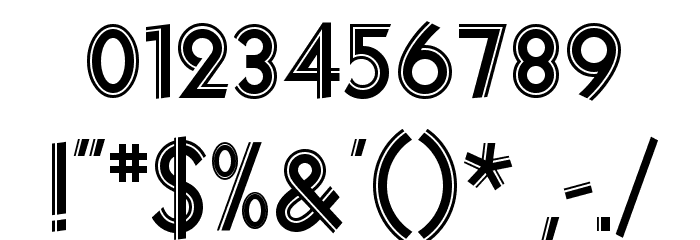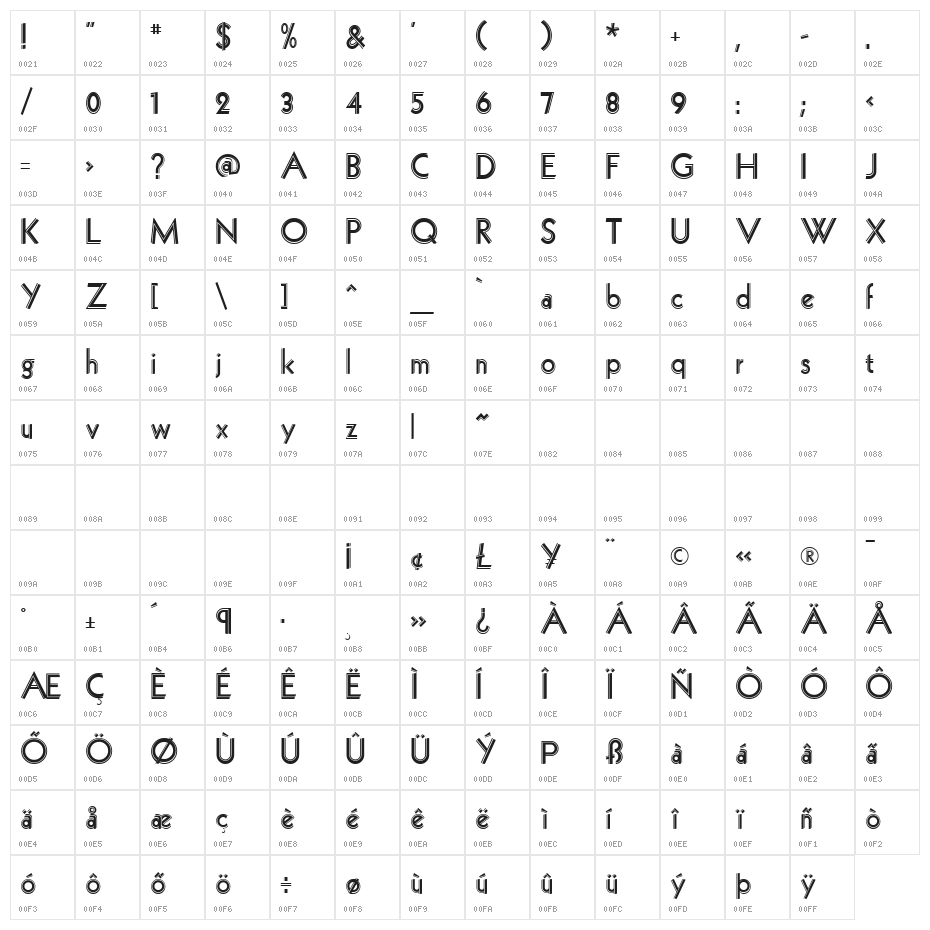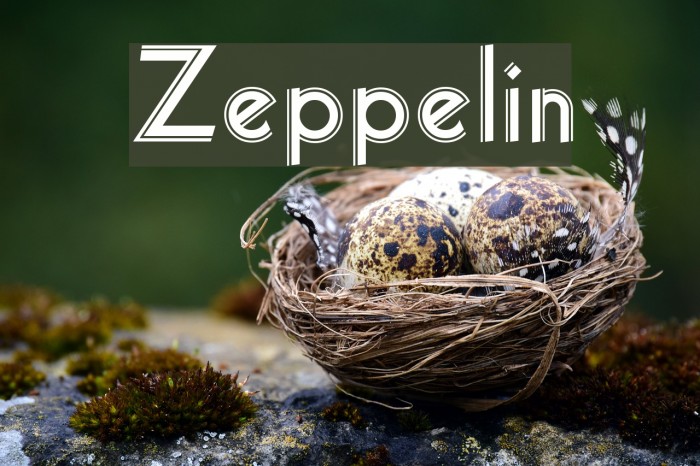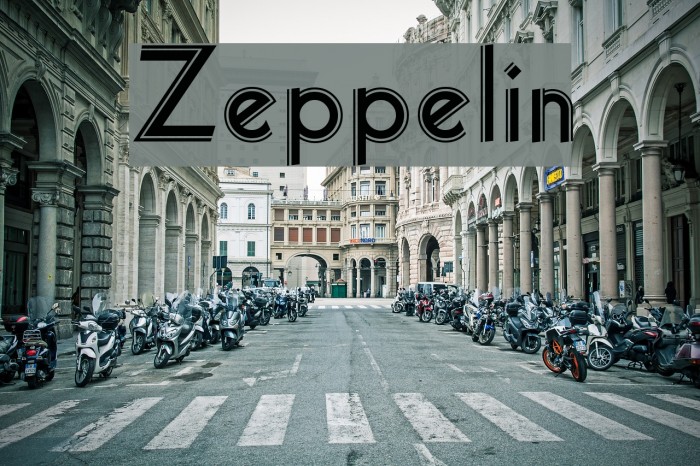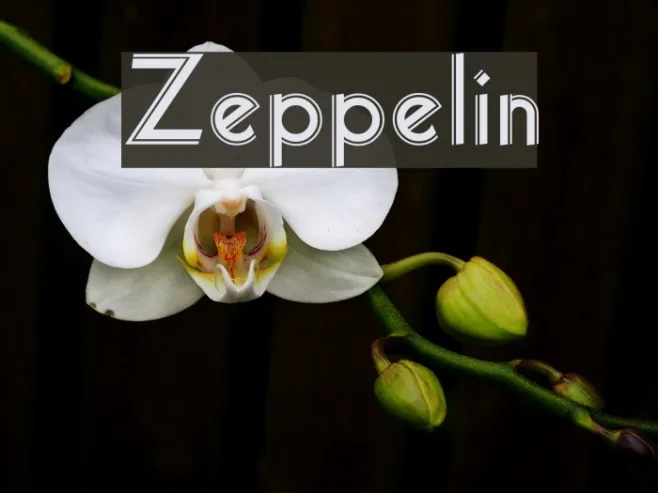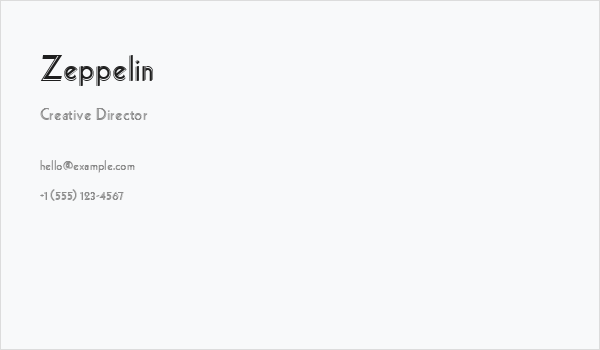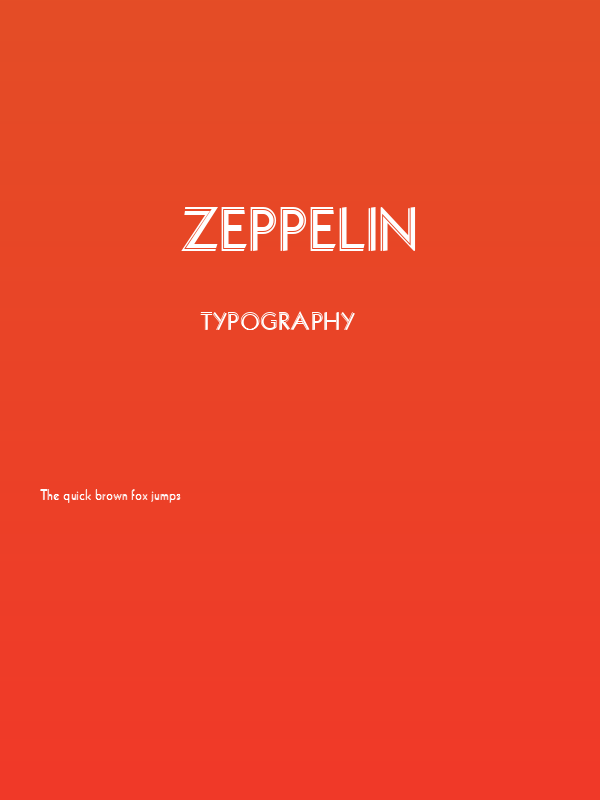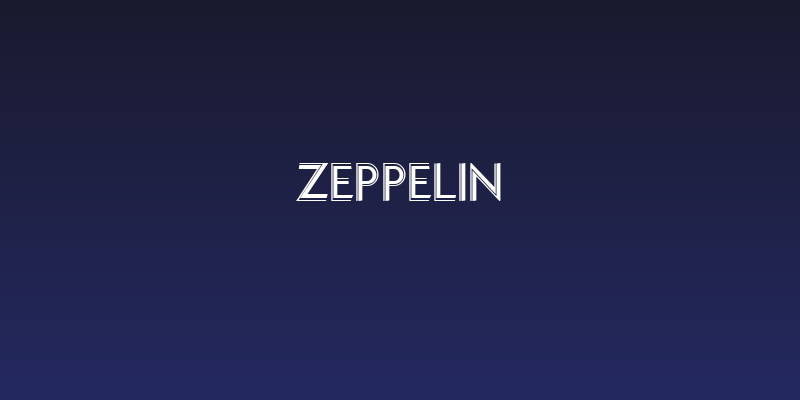
Zeppelin Font
Zeppelin Description
This font features a bold, geometric design with a strong Art Deco influence. The uppercase letters are characterized by sharp angles and clean lines, creating a sense of elegance and sophistication. The lowercase letters maintain a similar style, with consistent stroke widths and a modern flair. The numerals are distinct and easy to read, complementing the overall aesthetic. Special characters are designed with the same attention to detail, ensuring a cohesive look across all glyphs. This font is perfect for projects that require a touch of vintage glamour and modern appeal.
| Overall Style | Vintage, Modern |
| Proposed Projects | Ideal for branding, posters, invitations, and any design requiring a vintage yet modern aesthetic. |